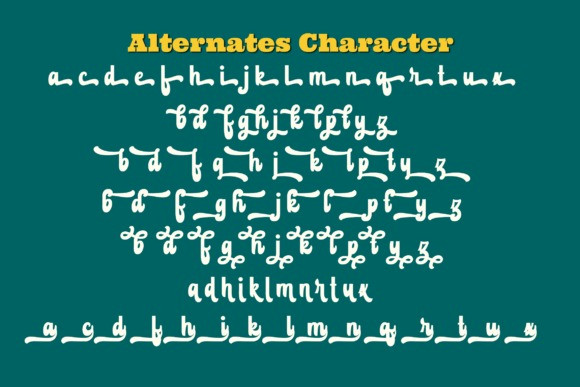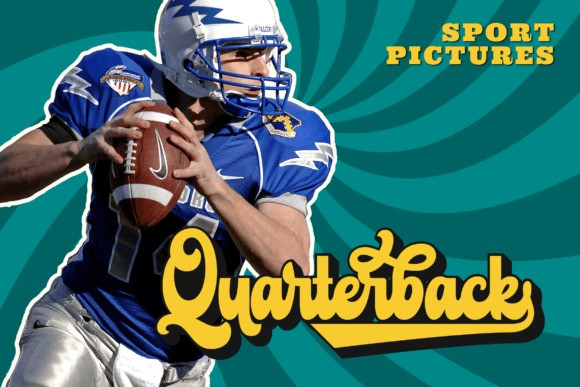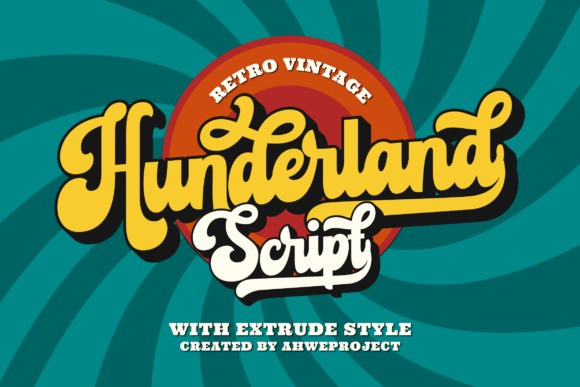
Hunderland Font
Hunderland Script Font is a bold retro-style script display font. With a retro and groovy vibe, this font is suitable for a wide pool of design ideas. This font reads as strong, confident, and dynamic and can add tons of nostalgic character to your designs.